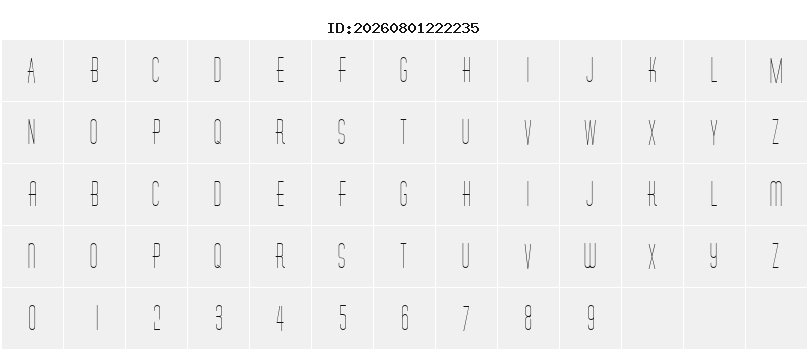
• Font Name: Melanin
• Font ID: Weatherly Systems, Inc. Melanin Regular
• Full Font Name: Melanin Regular
• Version: Publisher's Paradise -- Media Graphics International Inc.
• PostScript Name: Melanin
• Character Count: 227
About Melanin.ttf
Melanin.ttf is a modern, elegant sans-serif font designed for ultimate readability and visual harmony. Perfect for branding, headlines, web design, and print materials.